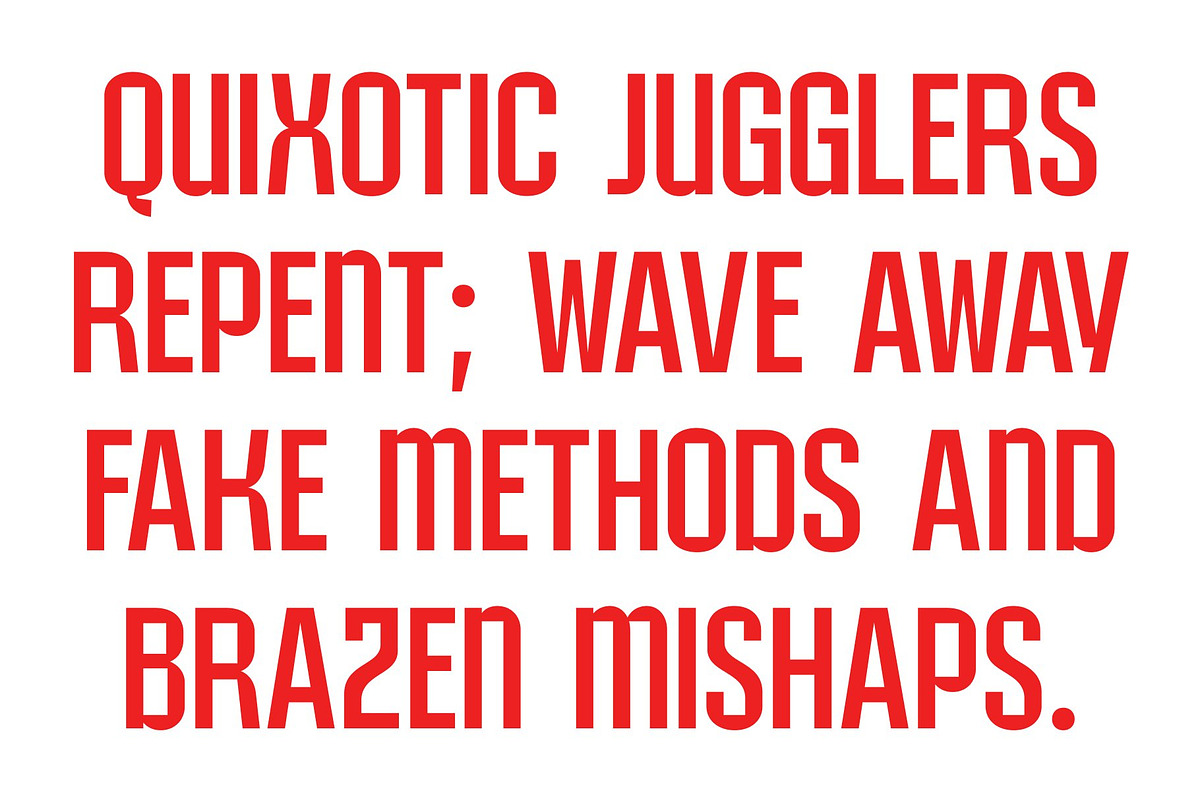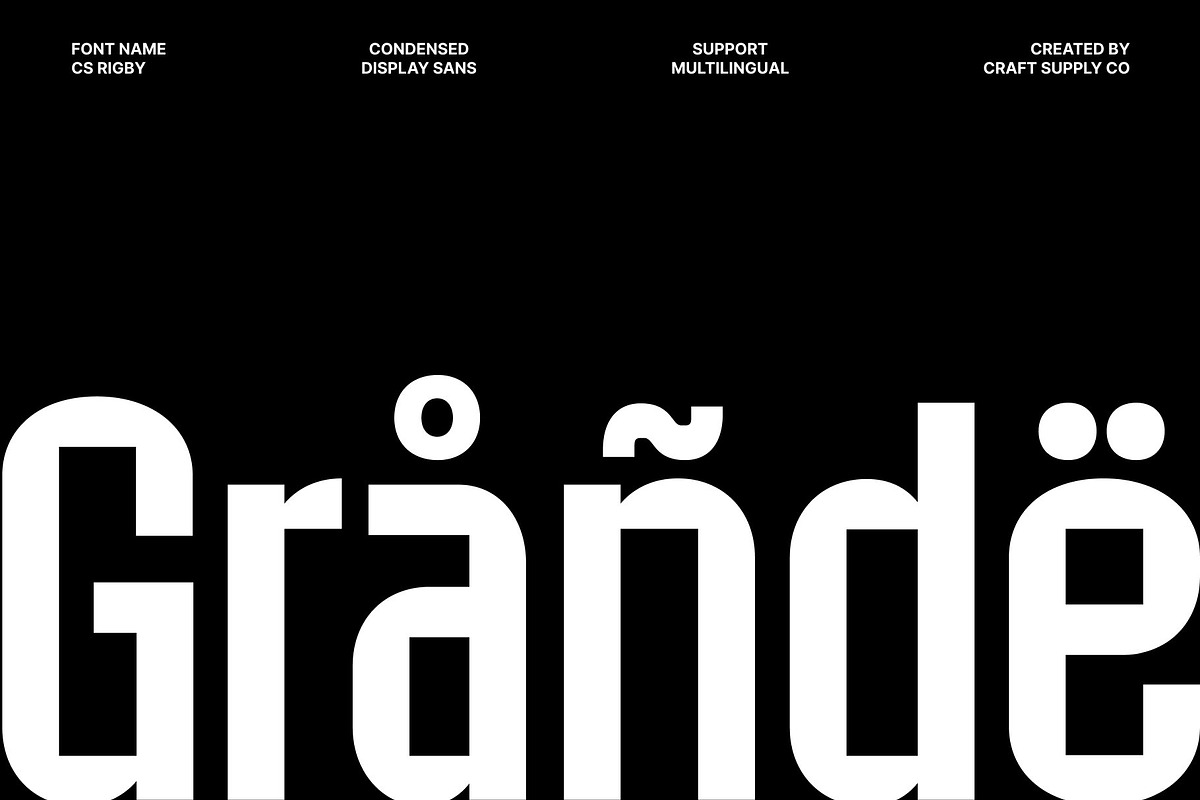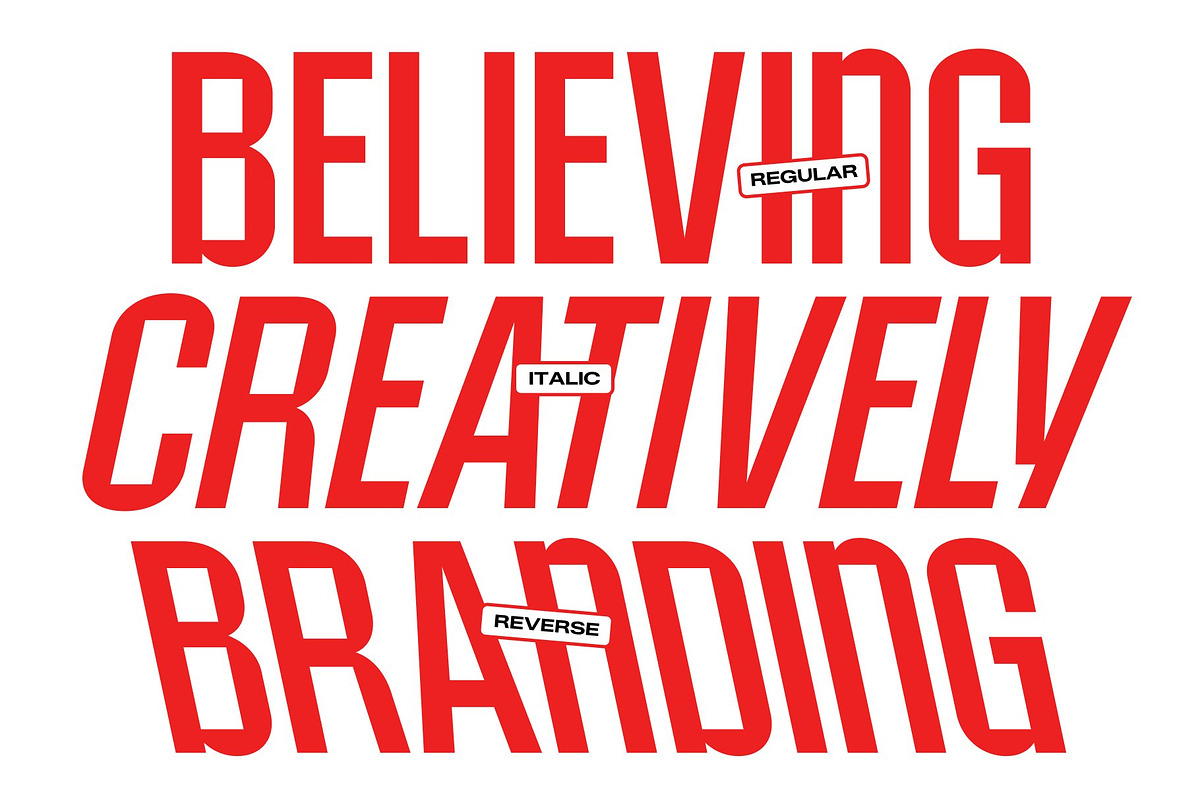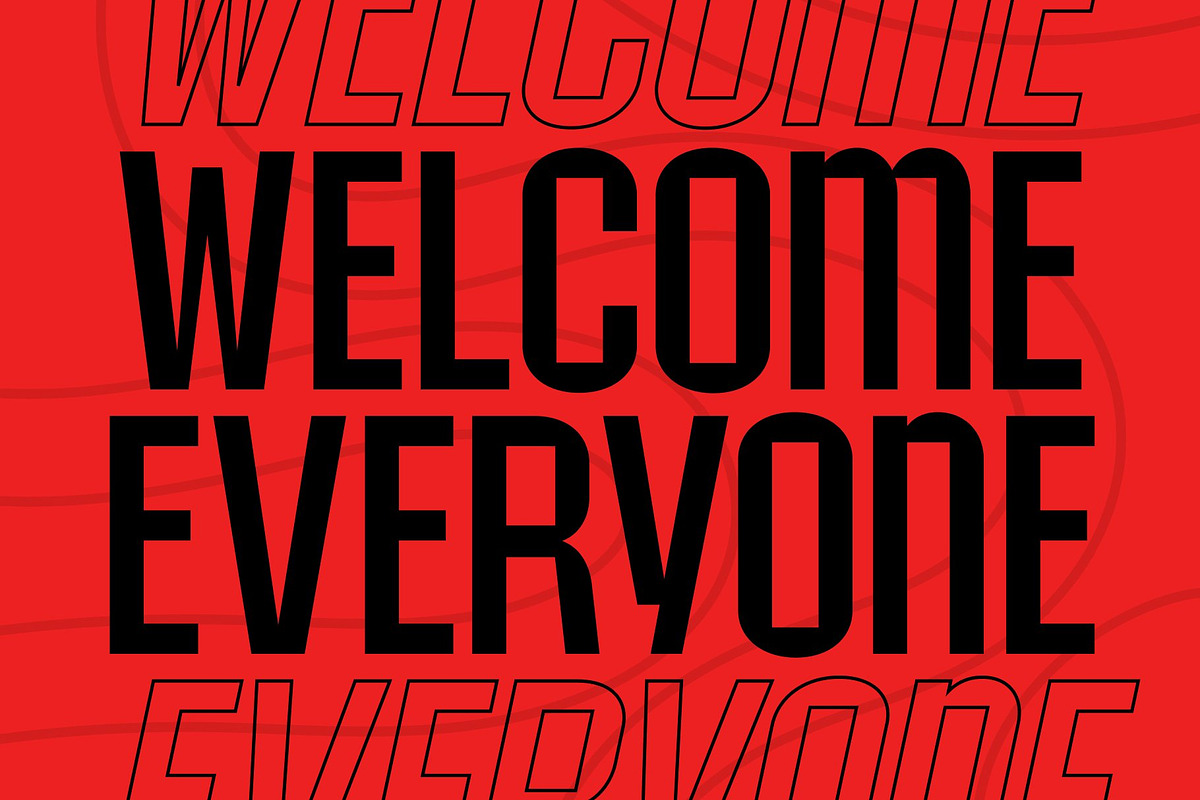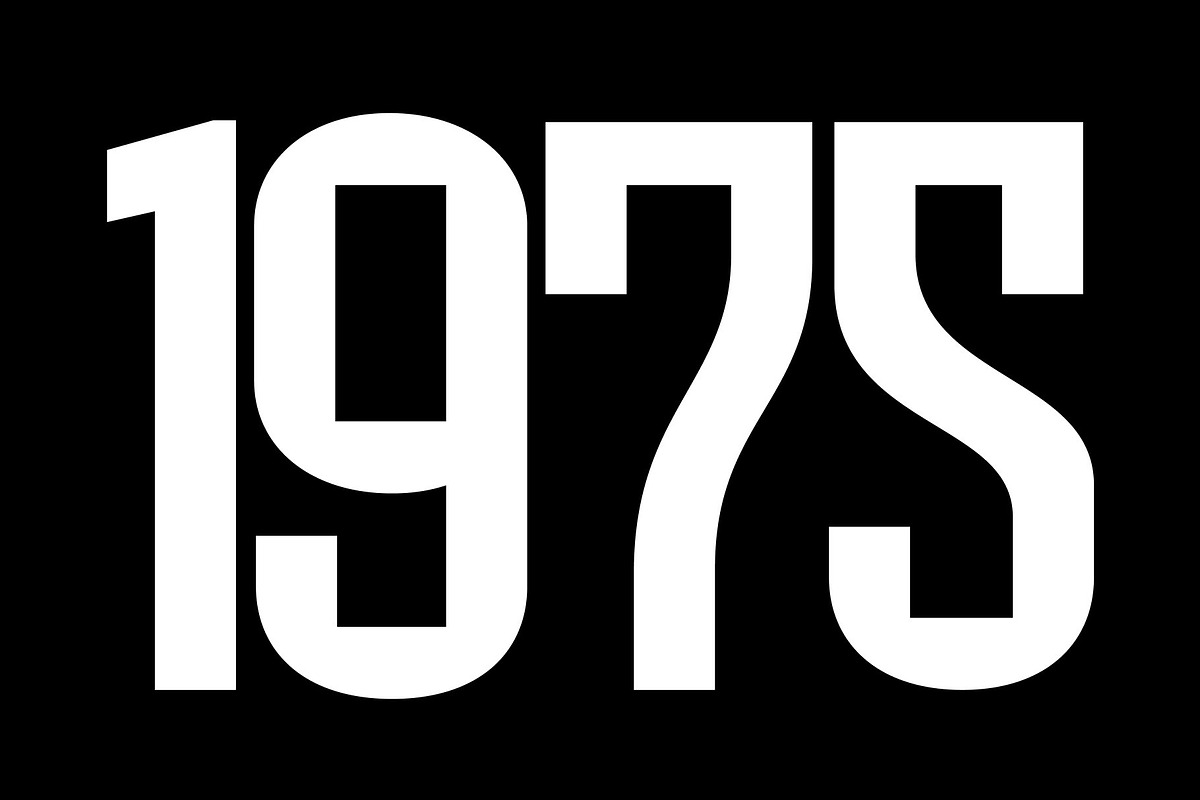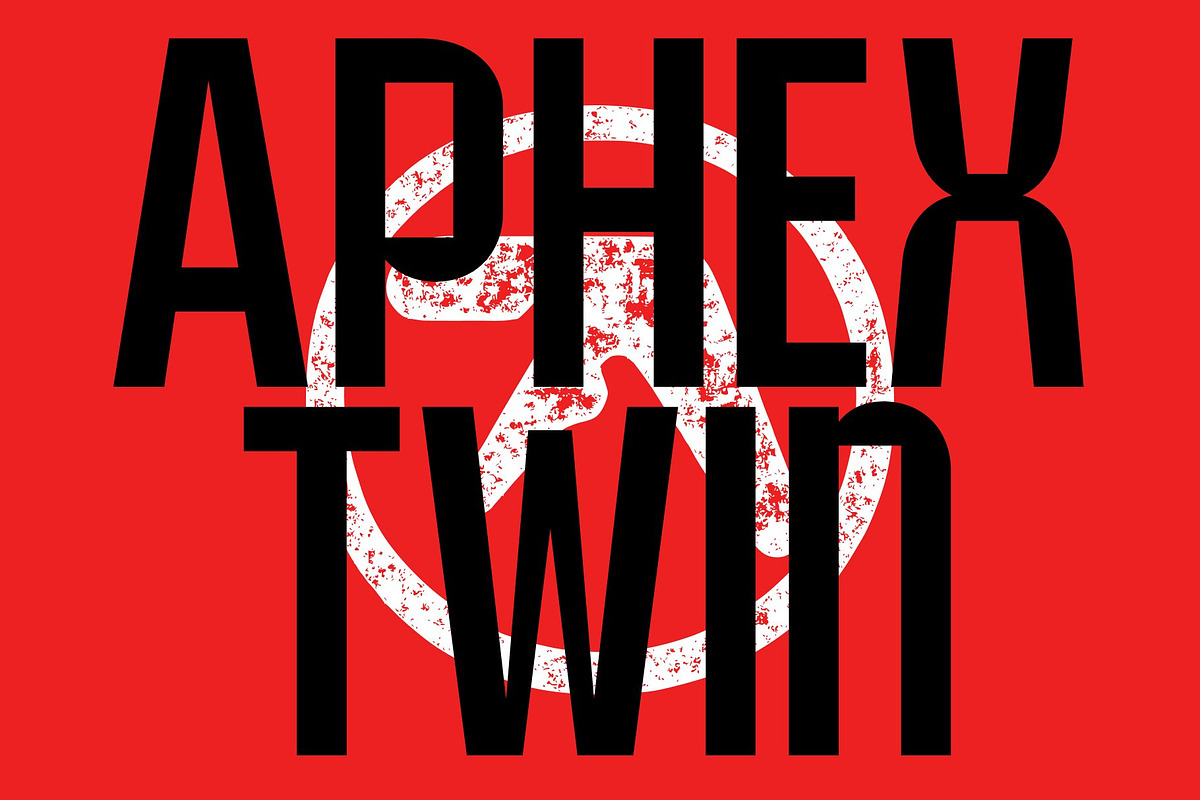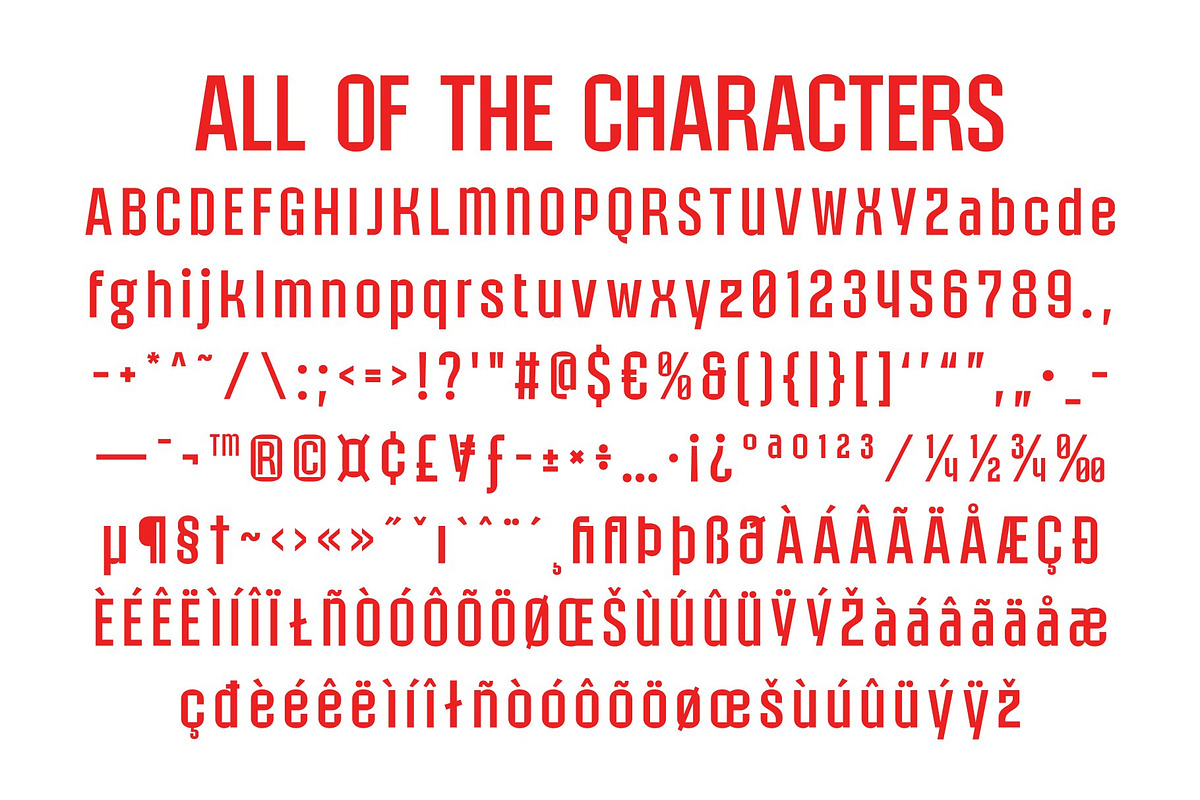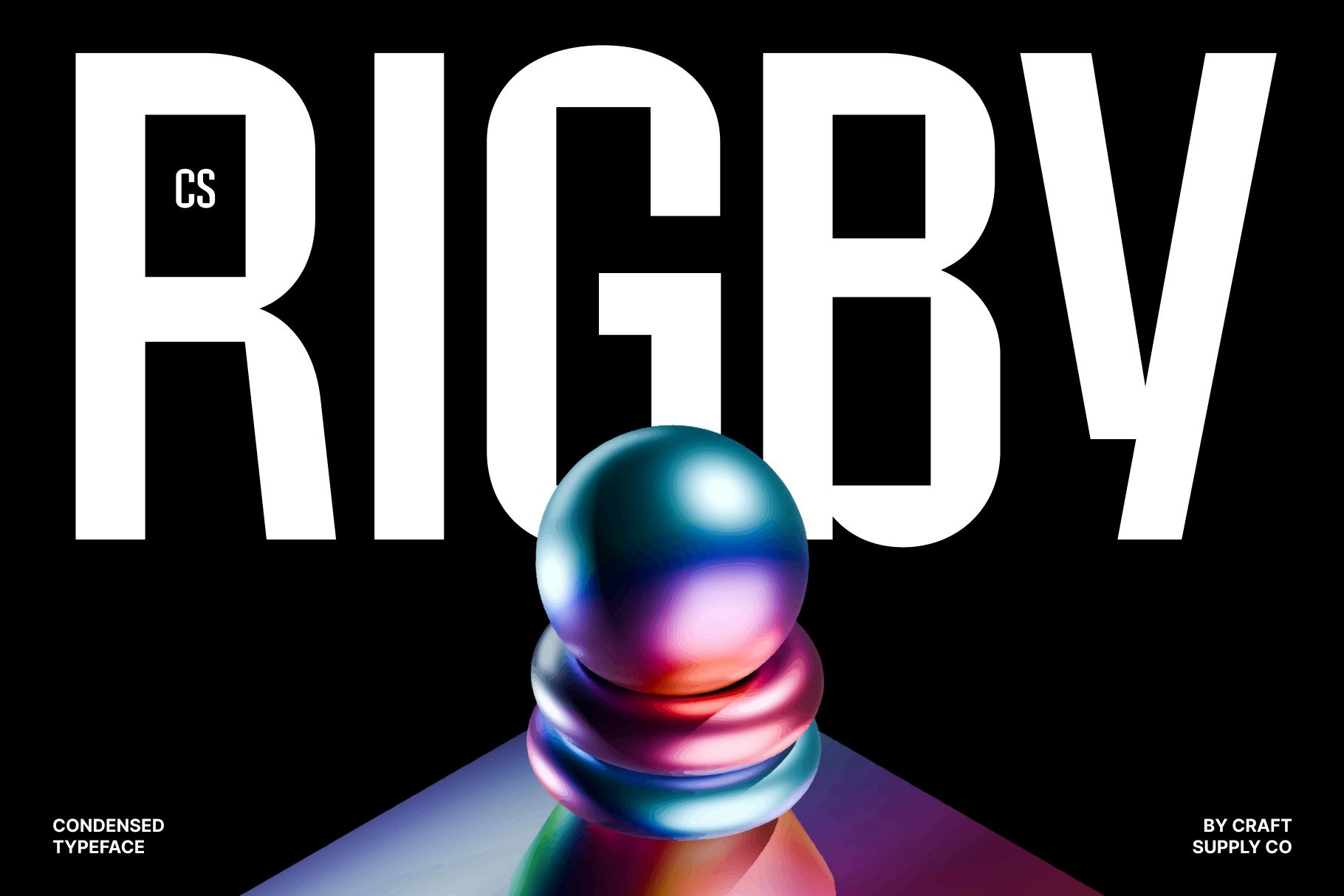
Rigby – Condensed Font
CS Rigby – Condensed Industrial Sans Serif with Technical Strength
Condensed Sans Serif with Industrial Character This is a condensed sans serif font built with a bold industrial spirit and a distinctly technical attitude. Designed to project strength and confidence, this typeface combines modern geometry with a masculine edge, making it perfect for designs that demand authority and impact. Its narrow proportions and structured forms create a commanding visual presence in every composition.
Geometric Structure with Mechanical Precision The letterforms of this font are crafted from clean geometric shapes that emphasize clarity and control. Straight lines, sharp angles, and balanced proportions work together to create a precise and engineered aesthetic. This mechanical influence gives the font a contemporary industrial feel, ensuring it stands out in modern layouts and bold visual systems.
Strong Personality for Powerful Visual Identity This font communicates strength, reliability, and determination through its condensed and structured design. The tall, compact characters allow text to feel assertive while remaining highly readable, even in tight spaces. This makes the font especially effective for impactful headlines and branding that need to capture attention instantly.
Perfect for Posters, Branding, and Creative Projects From posters and branding to headlines and digital graphics, this font adapts effortlessly to a wide range of creative applications. Its combination of industrial style, geometric precision, and modern clarity gives designers the tools to create visuals that feel bold, confident, and unmistakably contemporary.
CS Rigby Regular
CS Rigby Italic
CS Rigby Reverse Italic